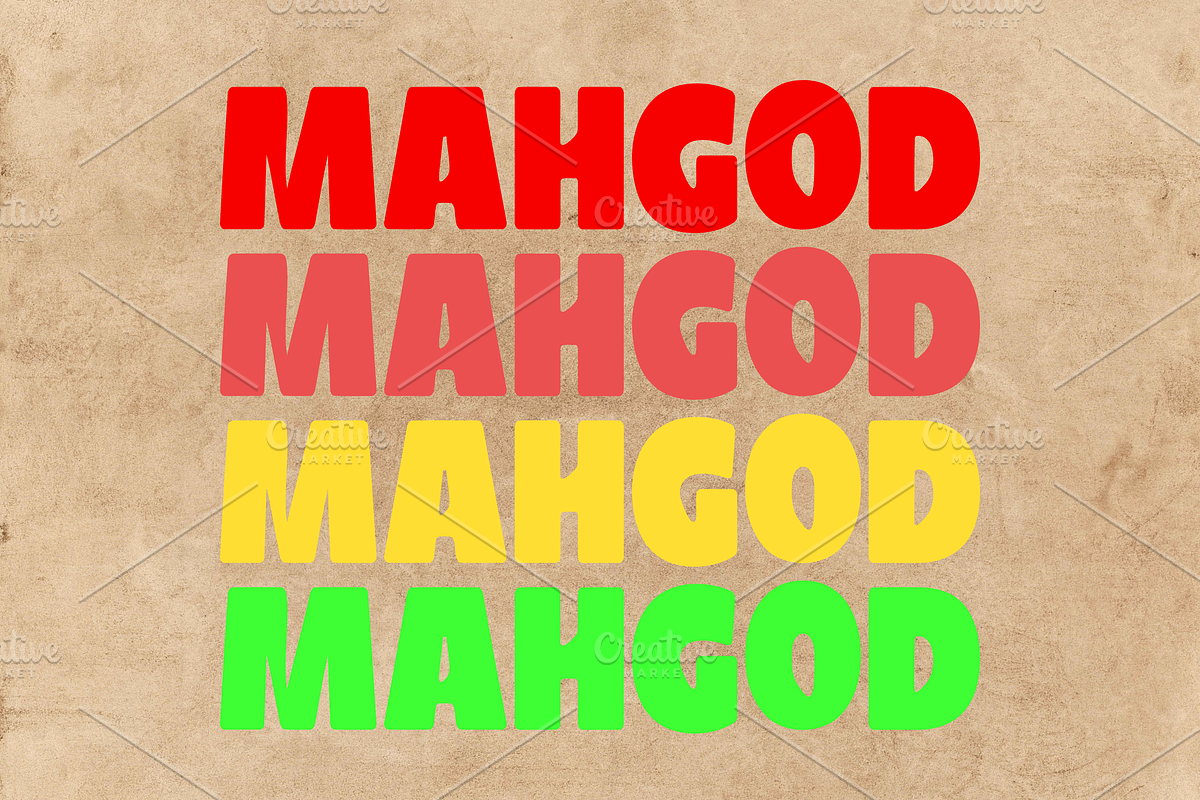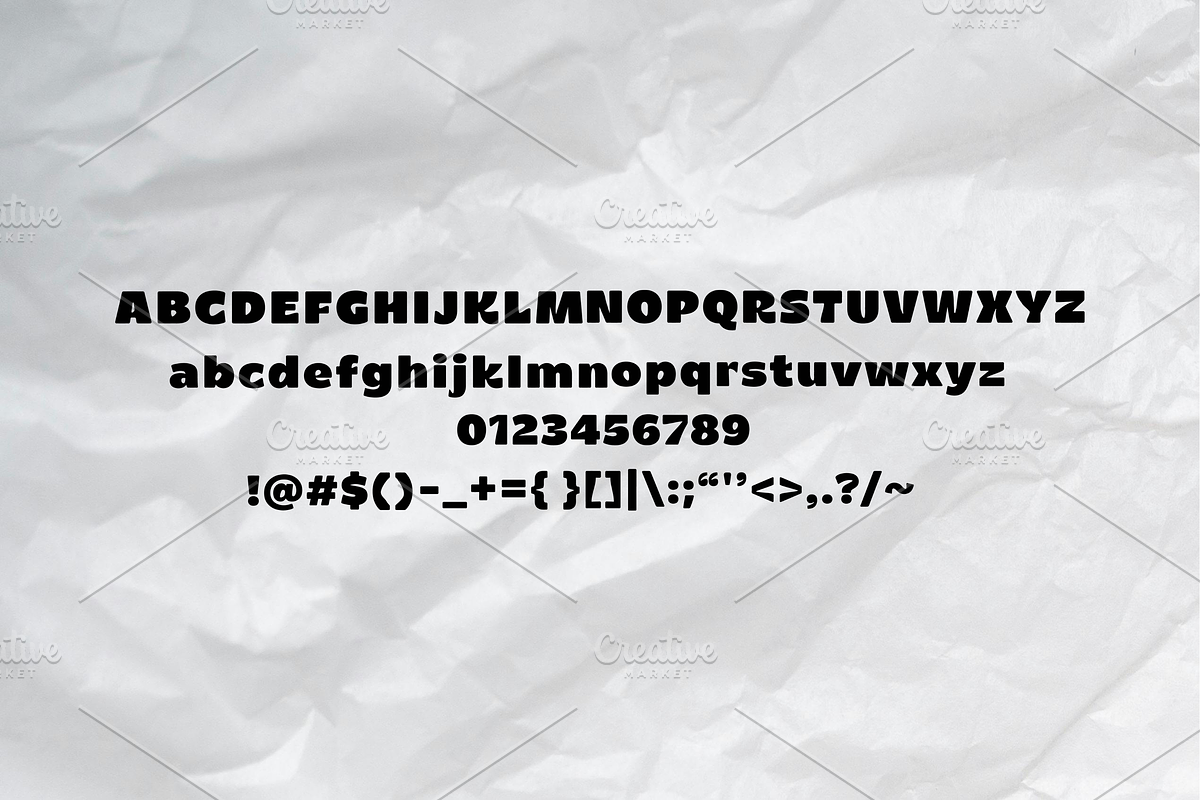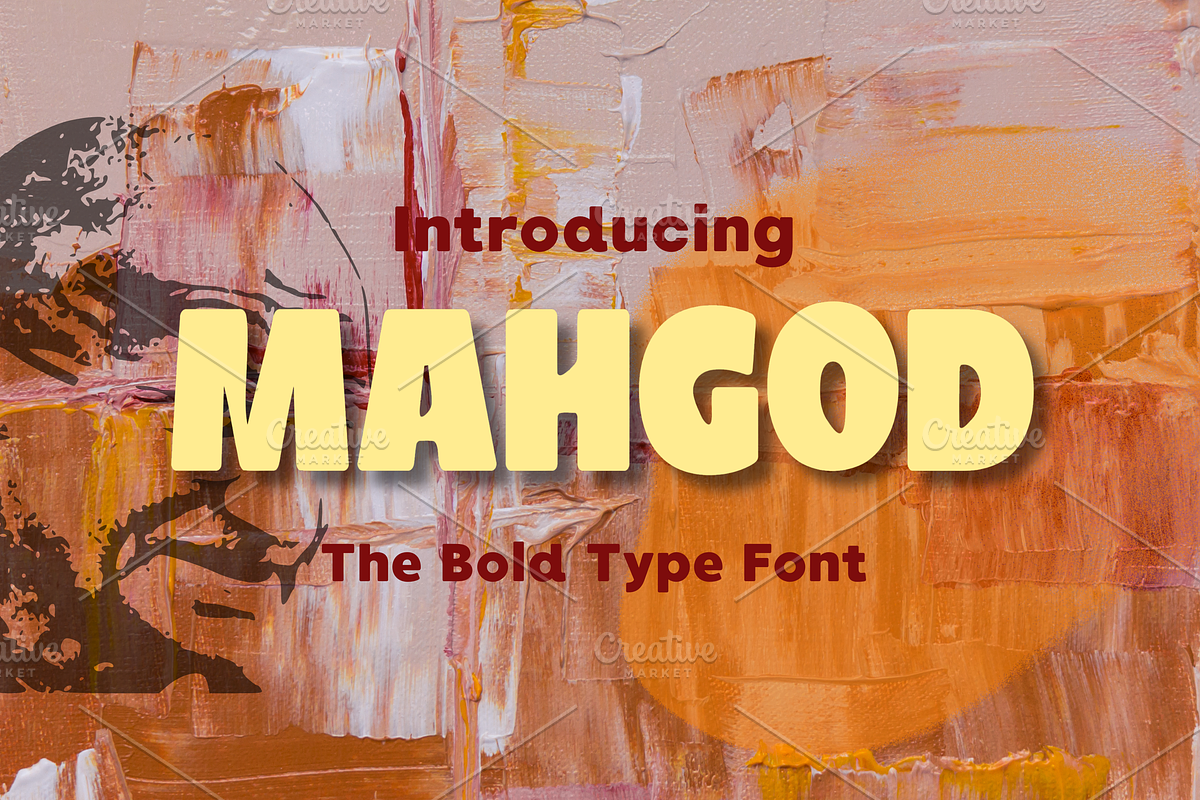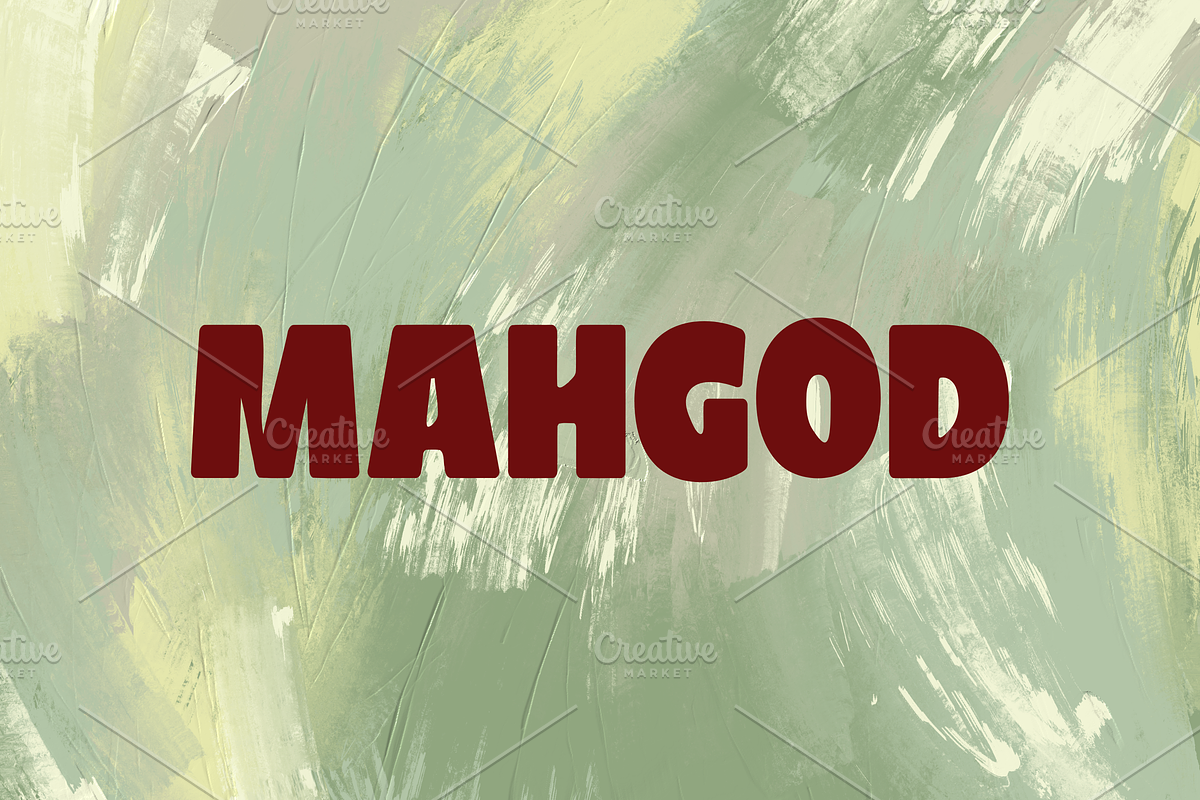
MAHGOD - Bold Display Font
Introducing MAHGOD, a bold display font designed to deliver a strong and standout impression to your designs. Its solid characters are perfect for a variety of creative projects.
Ideal for:
Logo Design & Branding
Headlines & Poster Typography
T-shirt & Streetwear Design
Social Media Content
Features include:
Lowercase
Numerals
Basic Punctuation & Symbols
Make your visual projects look more confident with MAHGOD Bold Font!